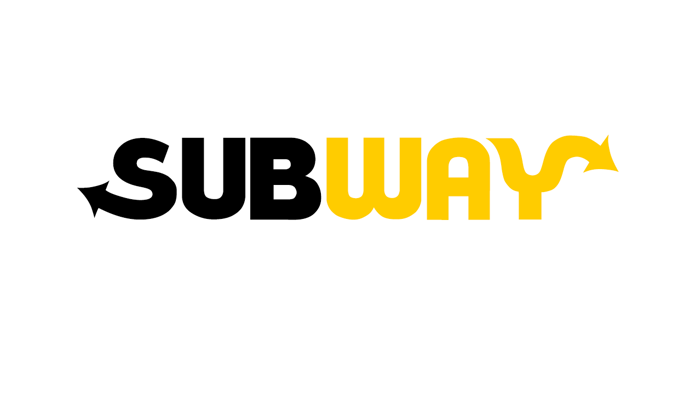
Eat Fresh Font
Relating to the Subway 1968 (629Lyric said it's 1968) font, this is Eat Fresh. Done proudly by me.
2 years ago@629Lyric It's Subway 1973.
2 years agoSubway Didn't Exist In 1968.
2 years agoexcuse me but @629Lyric YOU GOT THE DATE WRONG. @Globo said it was 1973
2 years agoand @538Fonts where is the arrowed S & Y can you show me 😉
2 years agogood one!!! shall i use it?! * = arrowed s and @ = arrowed y. thanks!!!!!!!!!
It's Subway 1968.